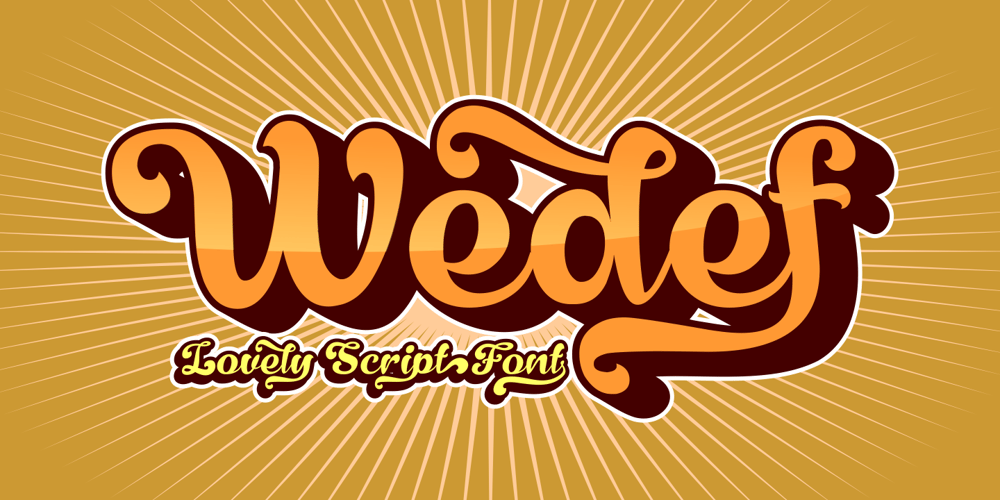
Wedef Font Family was designed by Ahmad Zulfikar Ali and published by ZetDesign. Wedef contains 2 styles and family package options. Wedef is a groovy script font that comes with lots of alternative styles for each letter. This makes it very easy for you to compose letters to suit your wishes. This font also has an italic style to give a more flexible and friendly impression. This font is perfect for holiday themes, parties, music, and your other amazing work.